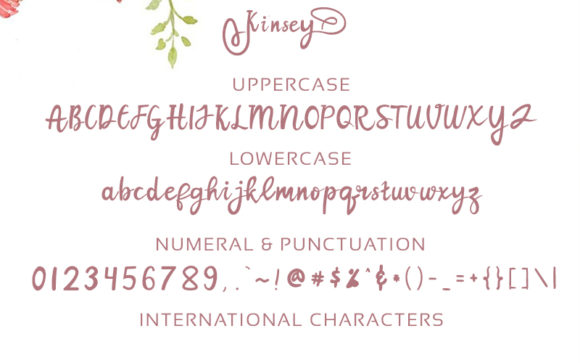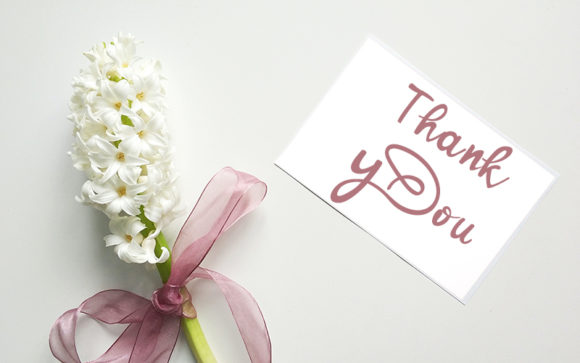
Introduction to Kinsey Font
Have you ever been browsing through a vintage bookstore and stumbled upon an old love letter or a handwritten wedding invitation? The charm of handwritten fonts can transport us to a bygone era, evoking emotions and nostalgia. That’s exactly what the Kinsey Font does – it brings a touch of warmth and authenticity to our creative projects.
As designers, we’re always on the lookout for design resources that can elevate our work and make it stand out. The Kinsey Font is a valuable addition to any designer’s toolkit, offering a high-quality, soft hand-lettered font that’s perfect for creating gorgeous wedding invitations, beautiful stationery art, and eye-catching social media posts. With its transparent background, you can easily combine it with other design elements to create stunning visuals.
Key Features of Kinsey Font
- High-quality design resource ideal for creative projects requiring a unique and elegant touch.
- Designed to be highly scalable, maintaining its crisp and clear appearance at various sizes and resolutions.
- Features a sophisticated and modern aesthetic, making it a great choice for branding, typography, and other design applications.
Honest Review: Kinsey Font
As a designer, I’m always on the lookout for high-quality design resources that can elevate my creative projects. Recently, I came across the Kinsey Font, and I have to say, it’s a great addition to my design arsenal.
What works well with the Kinsey Font is its versatility and modern aesthetic. ✨ It’s perfect for creating eye-catching headings, titles, and even logos. The font’s clean lines and subtle flair make it an excellent choice for a wide range of design projects.
One of the best features of the Kinsey Font is its transparent background, which allows for seamless integration into any design. Additionally, it’s available for free download, making it a valuable resource for designers on a budget.
However, I do have a few limitations to note: ⚠️ The font may not be as suitable for body text due to its somewhat condensed letterform. Also, some users may find the font’s modern style a bit too bold or overpowering.
Overall, I’m impressed with the Kinsey Font and would definitely recommend it to designers looking for a high-quality, free design resource.
- Perfect for creating eye-catching headings and titles
- Modern aesthetic with clean lines and subtle flair
- Seamless integration with transparent background
Tips for Getting the Most Out of Kinsey Font
Experiment with different font sizes, styles, and colors to find the perfect combination for your design. Use the transparent background feature to create a cohesive look in your design.
The Kinsey Font is suitable for a wide range of creative projects, including branding, marketing materials, and editorial designs. Its high-quality design and transparent background make it an ideal choice for designers seeking a versatile design resource.